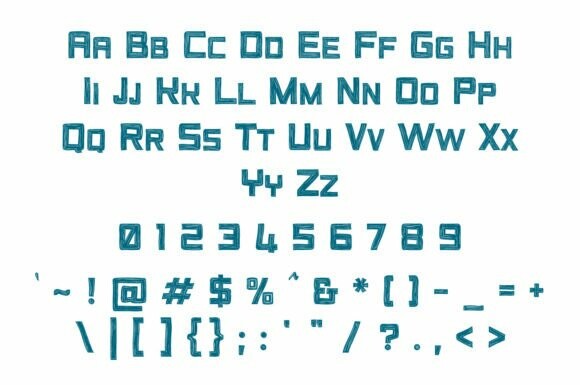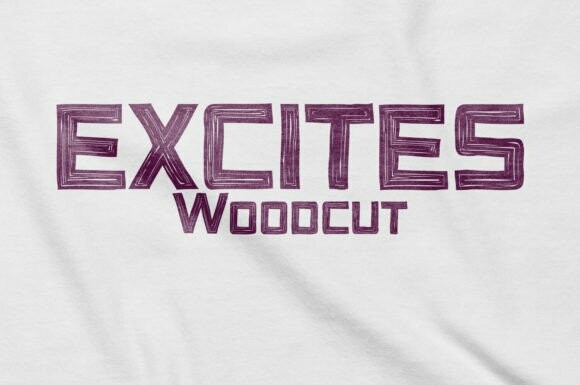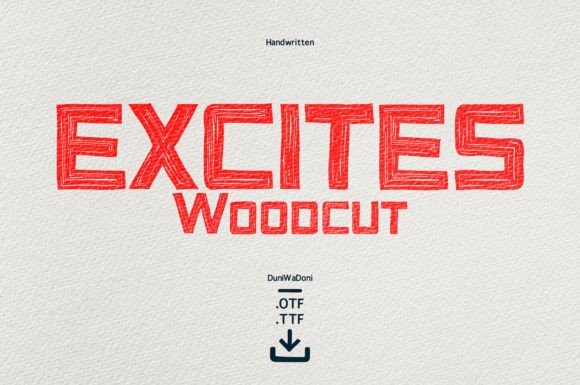
Excites Woodcut Font
Designer: DuniWaDoni
Excites Woodcut Font is a display font that looks like it’s made from wood. The letters have a wooden pattern, making them perfect for designs with a rustic or natural feel. It’s a bold and unique font that stands out, especially in projects that want to capture the look of wood or nature.